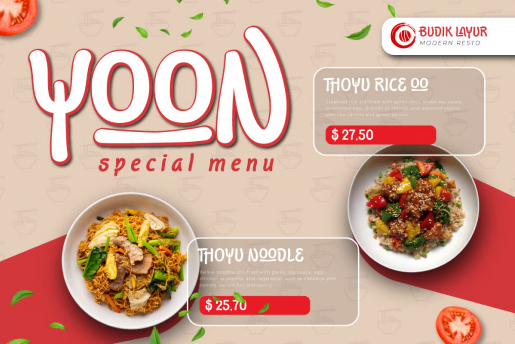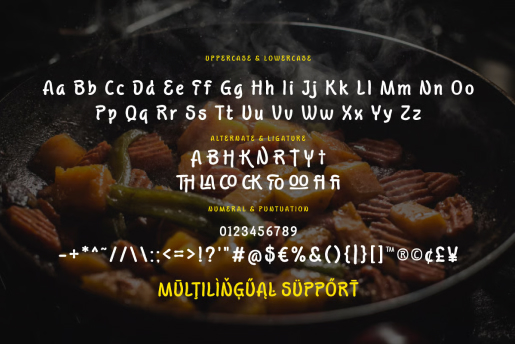
Tooh Byawin - Food Display Font
Tooh Byawin is a bold and playful display font designed specifically for food branding and culinary projects. Its rounded shapes and soft curves bring a warm, inviting feel that’s perfect for snack packaging, café menus, and bakery signs. With its cheerful personality, Tooh Byawin captures attention while keeping things friendly and fun. Add a tasty, irresistible vibe to your food-related designs with this flavorful font.